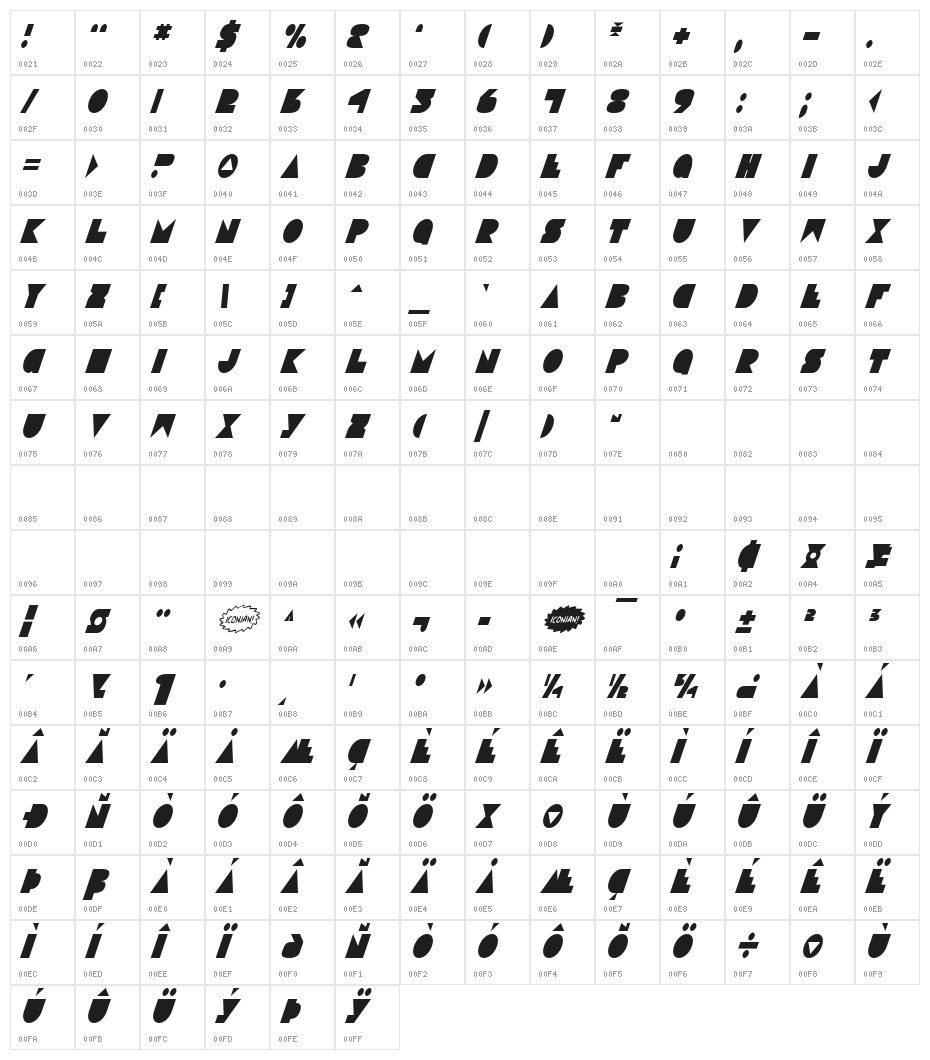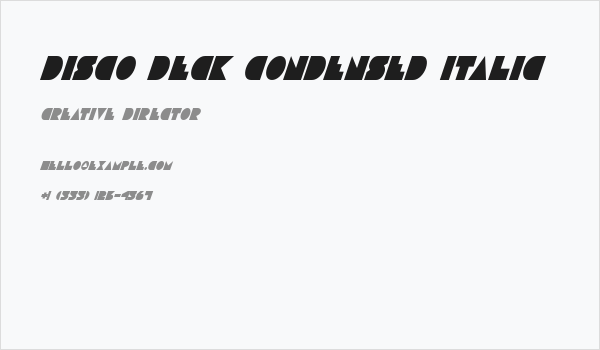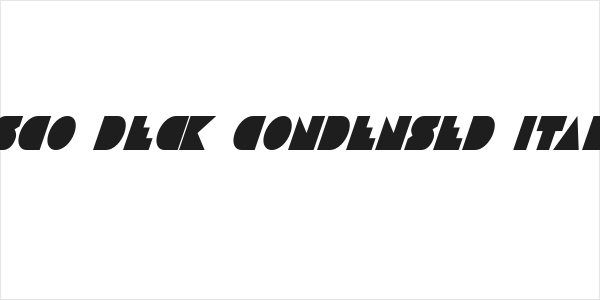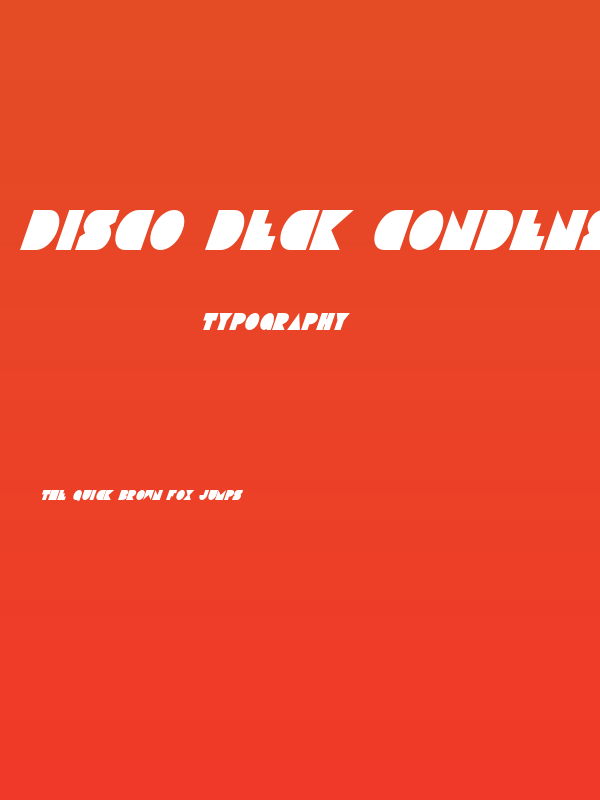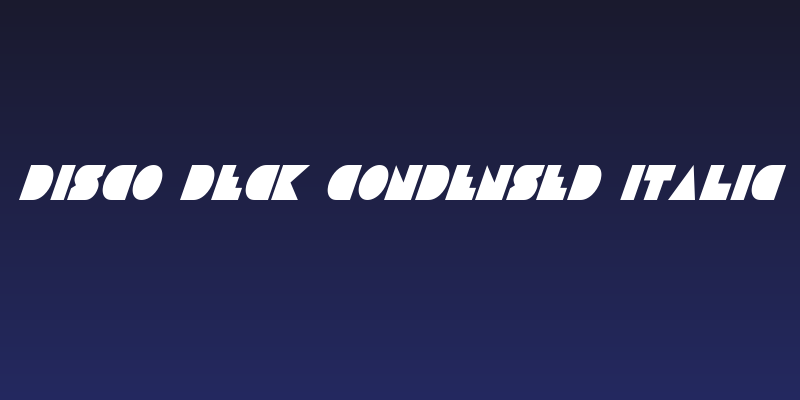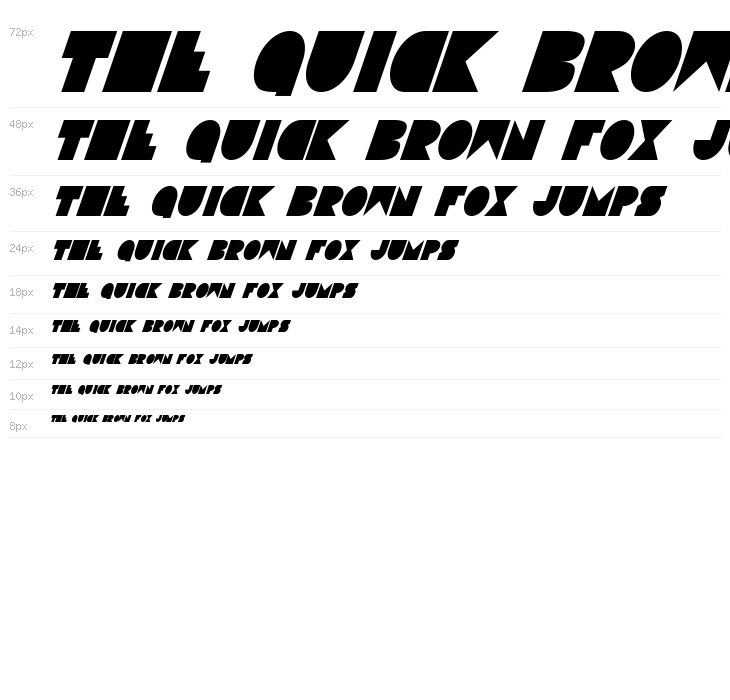
Disco Deck Condensed Italic Font
Disco Deck Condensed Italic Description
This font exhibits a bold, geometric style with a condensed and italicized form. The characters are crafted with sharp angles and a futuristic aesthetic, reminiscent of retro-futuristic design. The uppercase and lowercase letters maintain a consistent angular theme, creating a cohesive and dynamic appearance. The numbers and special characters follow the same stylistic approach, ensuring uniformity across all glyphs. This font's unique style makes it stand out, ideal for projects that require a bold and modern touch.
Overall StyleModern, Retro-Futuristic
Proposed ProjectsIdeal for use in posters, album covers, branding, and any project needing a bold, modern aesthetic.